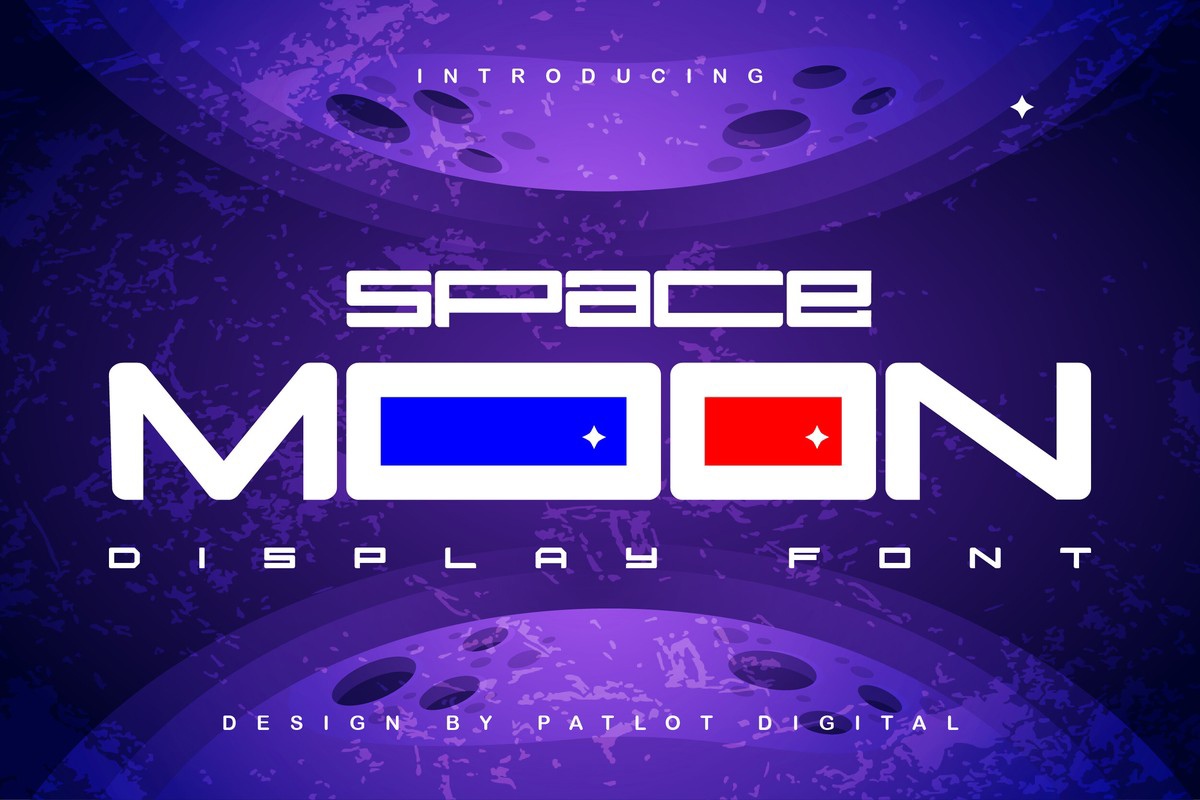
Space Moon Font
Space Moon Font is ideal for space exploration agencies, lunar research facilities, astronomical observatory branding, space tourism companies, planetarium exhibition displays, NASA mission materials, aerospace engineering presentations, space science education centers, cosmic photography services, and futuristic space technology marketing. This celestial typeface brings lunar mystique and space exploration wonder to any cosmic-focused design project.
Space Moon Font is exciting because it captures the profound mystery and infinite wonder of lunar exploration, featuring otherworldly letterforms that seem to float in the vacuum of space while reflecting the ethereal beauty of moonlight and the ambitious human spirit that reaches beyond Earth's atmosphere. Its cosmic character instantly conveys exploration courage, scientific discovery, and the timeless fascination with our celestial neighbor that has inspired humanity's greatest space achievements.
Space Moon Font family includes Ultra Light, Light, Regular, Medium, and Bold weights with lunar alternates, cosmic flourishes, astronomical ornamental elements, and space symbols that enhance the celestial aesthetic, providing space designers with stellar tools for creating typography that celebrates lunar exploration and space science advancement with cosmic authenticity.
Aerospace designers appreciate Space Moon Font for its exceptional ability to convey cosmic wonder and space exploration achievements through celestially crafted letterforms. The font's lunar character and space details create immediate associations with moon landings, space missions, and the remarkable scientific achievements that have expanded human presence beyond Earth and deepened our understanding of the cosmos and our place within it.
The design philosophy behind Space Moon Font celebrates humanity's eternal fascination with the moon and the remarkable courage and scientific innovation required to explore space and expand human knowledge beyond the boundaries of our home planet, making it particularly effective for space organizations, astronomical institutions, and aerospace companies. Space teams working on lunar missions find this font essential for cosmic communication.
Whether used for space exploration missions, lunar research programs, or astronomical education initiatives, Space Moon Font delivers the perfect combination of cosmic authenticity and space exploration excellence. Its lunar appeal and astronomical wonder make it an indispensable choice for organizations that advance space science, promote cosmic exploration, and celebrate humanity's remarkable journey beyond Earth toward the stars and our mysterious celestial neighbors.